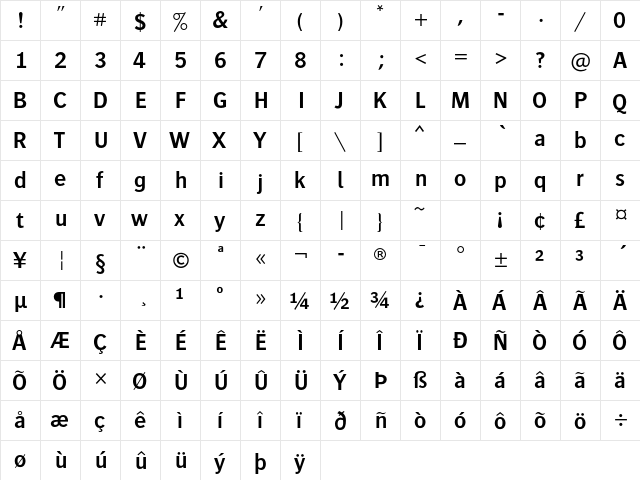
Bosis Std Semibold
Design Context for Bosis Std Typeface
Bosis Std is a composed and adaptable typeface that performs quietly and consistently across a wide range of design contexts. The heavy weight commands attention and anchors typographic hierarchies.
Pro Tip: Use Bosis Std in both headline and body roles to test its range before committing to a single application.